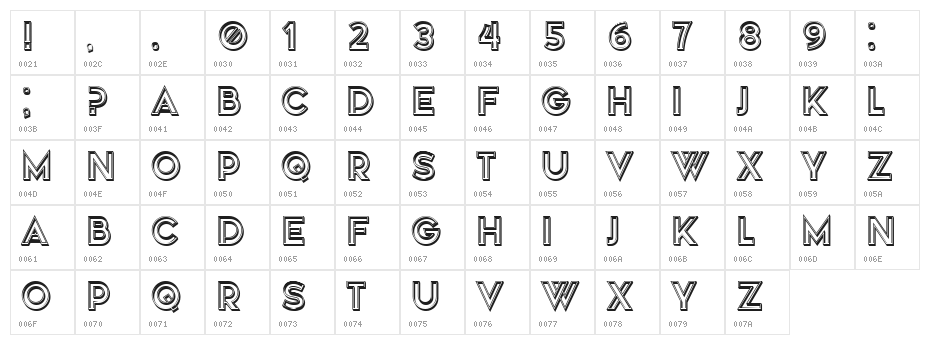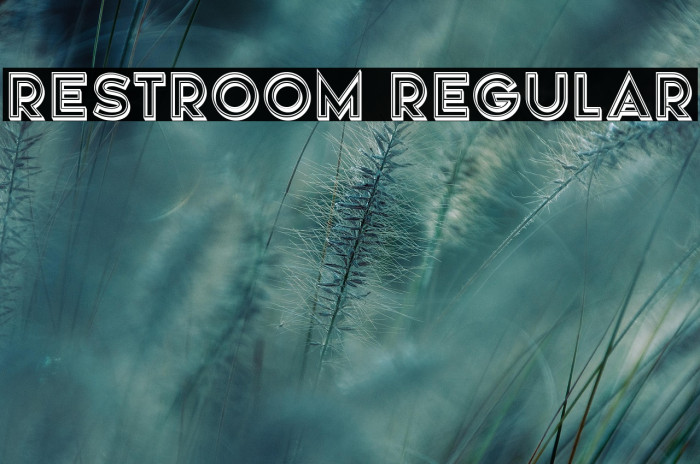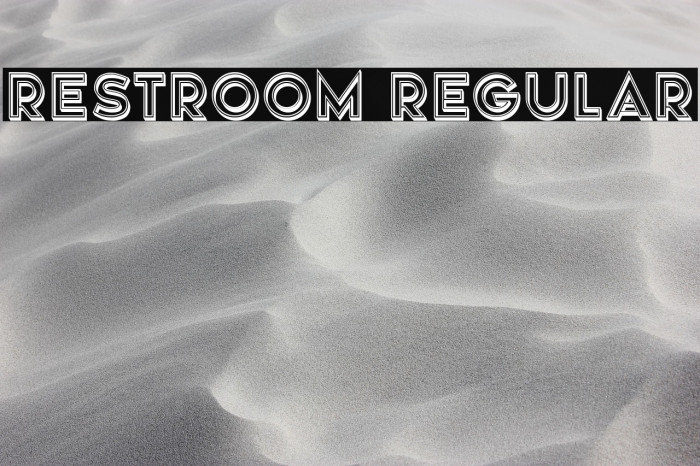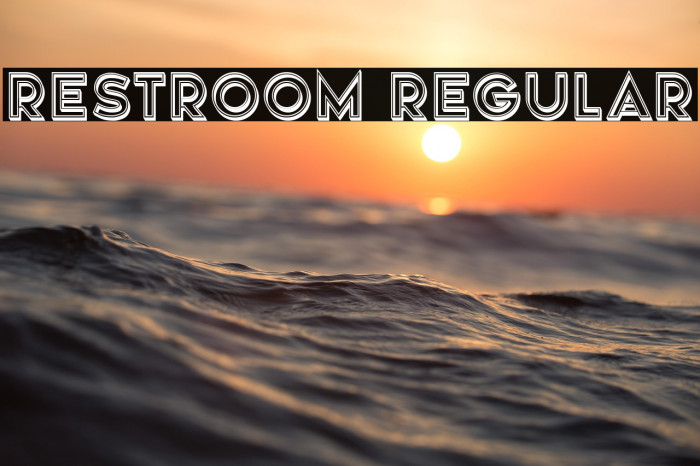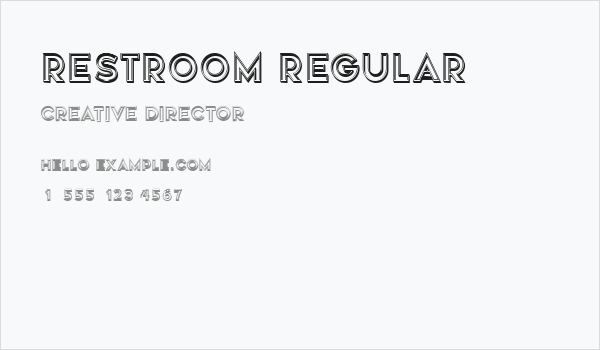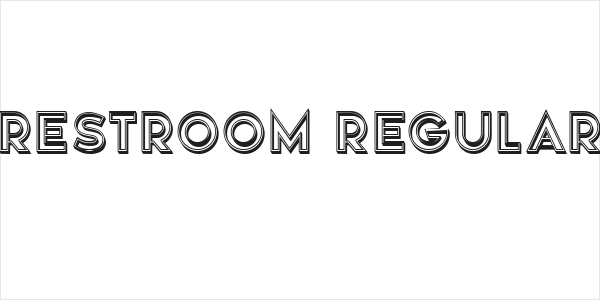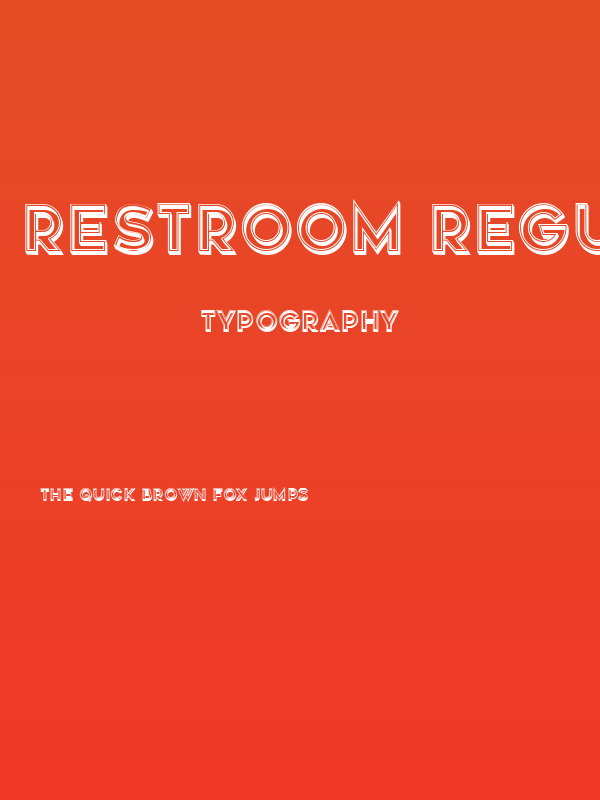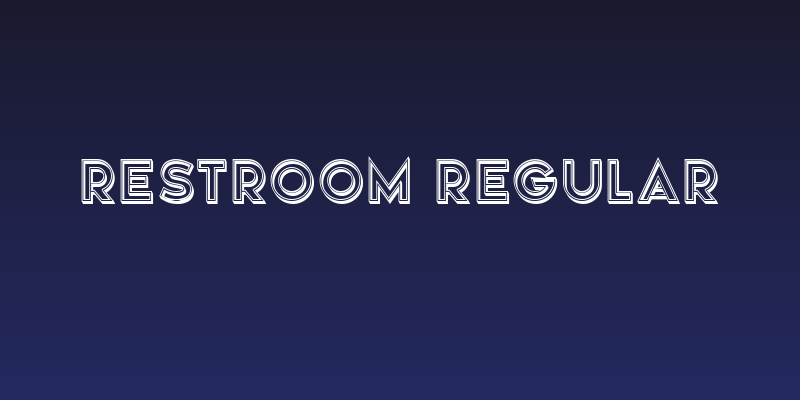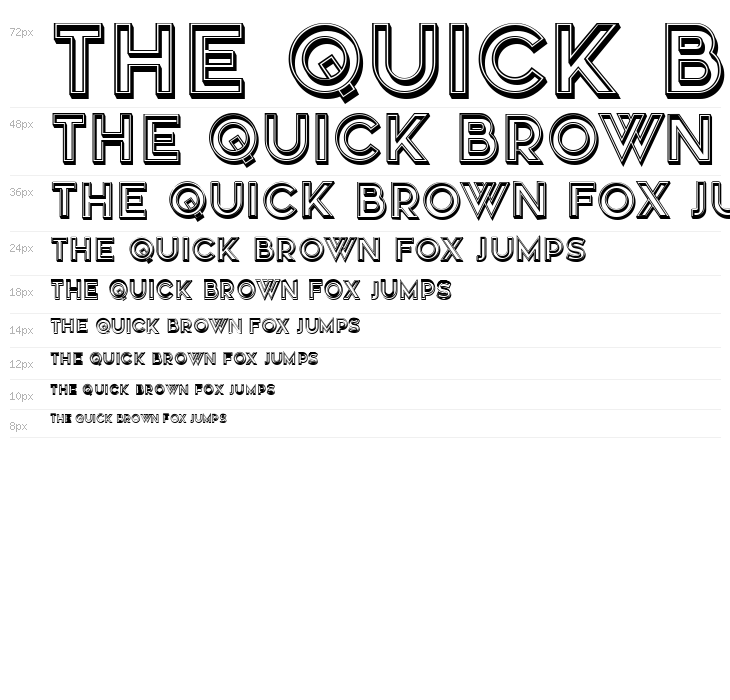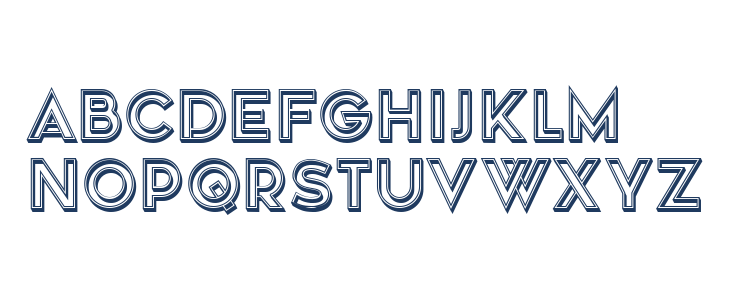
Restroom Regular Font
Restroom Regular Description
This font features a bold, geometric style with a distinct three-dimensional effect created by its layered outline. The uppercase letters are uniform in height and width, giving a balanced and structured appearance. The characters have a modern and industrial feel, with clean lines and sharp angles that enhance their visual impact. The numerals and special characters maintain the same bold and structured design, ensuring consistency across all elements. This font's unique style makes it stand out, offering a contemporary twist on traditional geometric fonts.